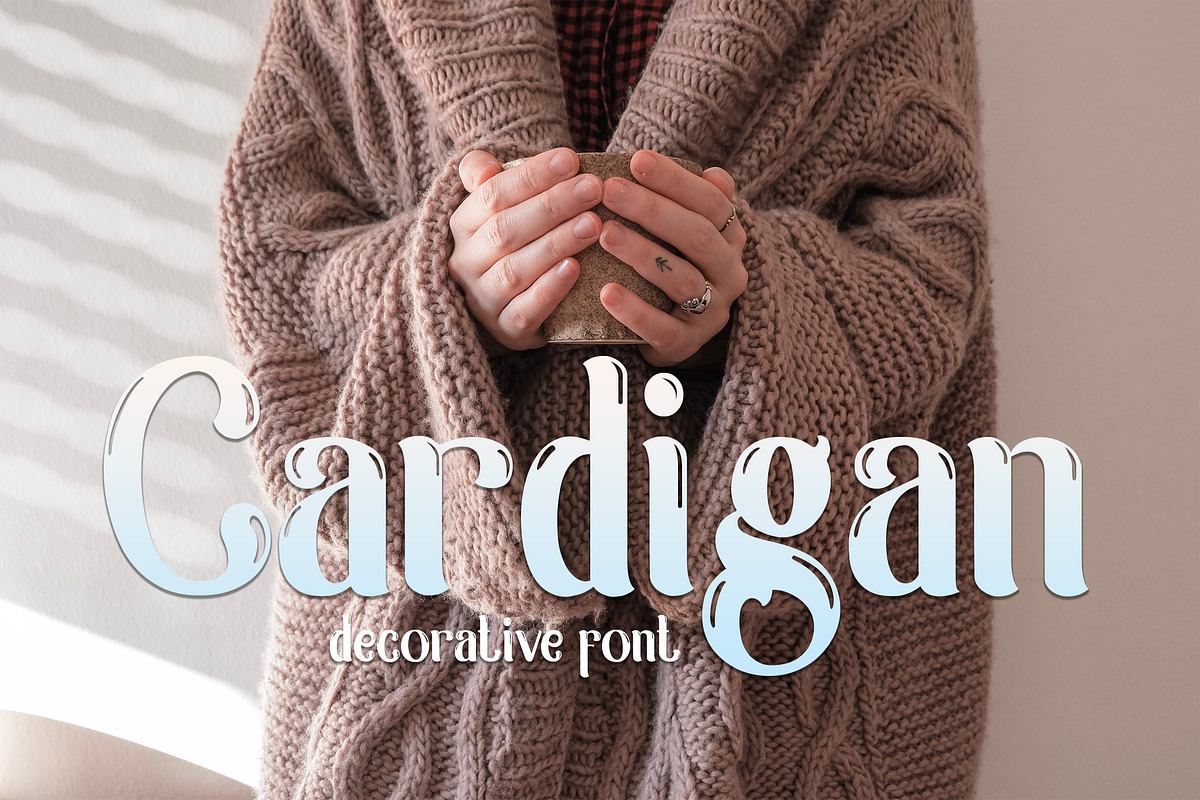
Cardigan Font Free Download is a warm and inviting typeface that combines the beauty of handcrafted lettering with modern elegance. Featuring smooth curves and a comfortable, easygoing feel, Cardigan is perfect for branding, logos, invitations, social media content, and any design project that needs a touch of charm and personality.
This font evokes the cozy, comforting feeling of a cardigan sweater, making it ideal for projects that aim to feel approachable and friendly. Whether you’re working on a boutique brand, wedding stationery, or casual event graphics, Cardigan brings style and warmth to your typography.